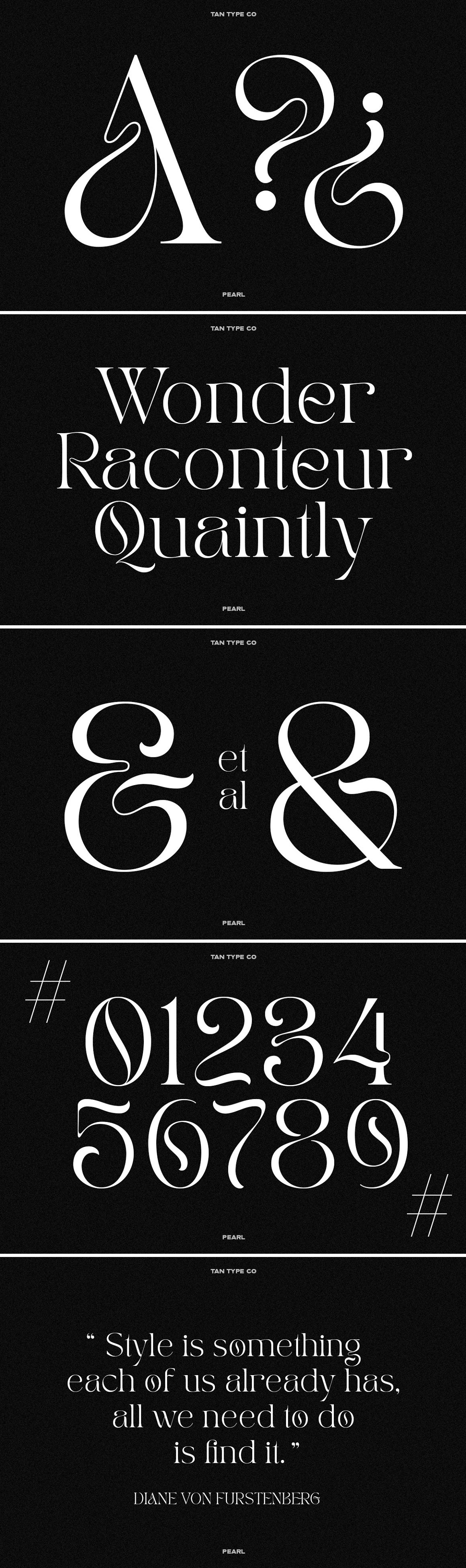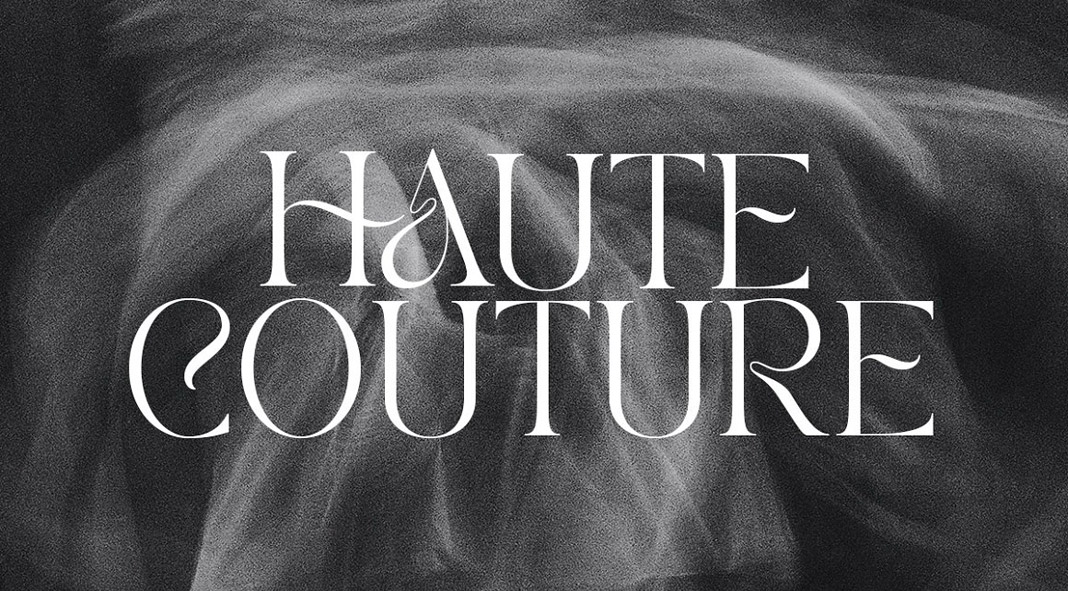
Discover TAN PEARL, a playful yet elegant serif font.
The skilled team of foundry TanType clearly specializes in a range of elegant display fonts and TAN PEARL is no exception. This playful yet elegant typeface attracts attention with its beautiful curves. On the other hand, it still maintains a classy style. You can use it for plenty of typographic work including fashion-inspired design projects, branding, packaging, magazines, social media, just to name a few. The TAN PEARL typeface is also equipped with numerous typographic features such as alternate letters and multilingual support. Just click on the following link to learn more about this unique typeface.
TAN PEARL Font by TanType